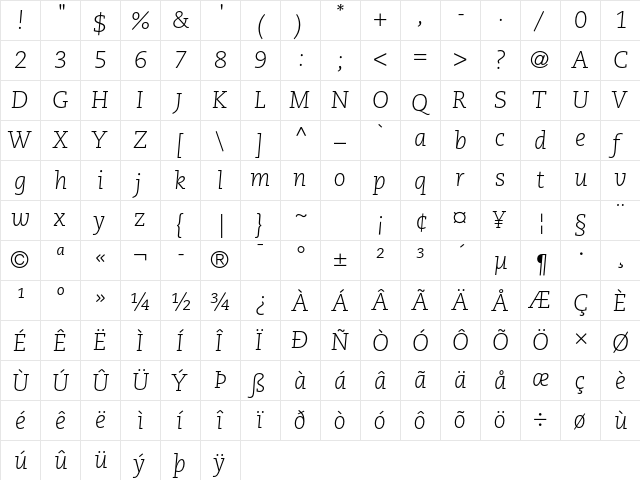
Caecilia LT Std 46 Light Italic Font Preview
| Style | 46 Light Italic |
| Designer | Peter Matthias Noordzij |
Design Context for Caecilia LT Std Typeface
Caecilia LT Std takes a measured approach to typography — its balanced proportions and neutral character make it a reliable workhorse for both digital and print work. Its italic angle brings a sense of urgency and motion to the letterforms. Its slender proportions lend an understated elegance to any composition.